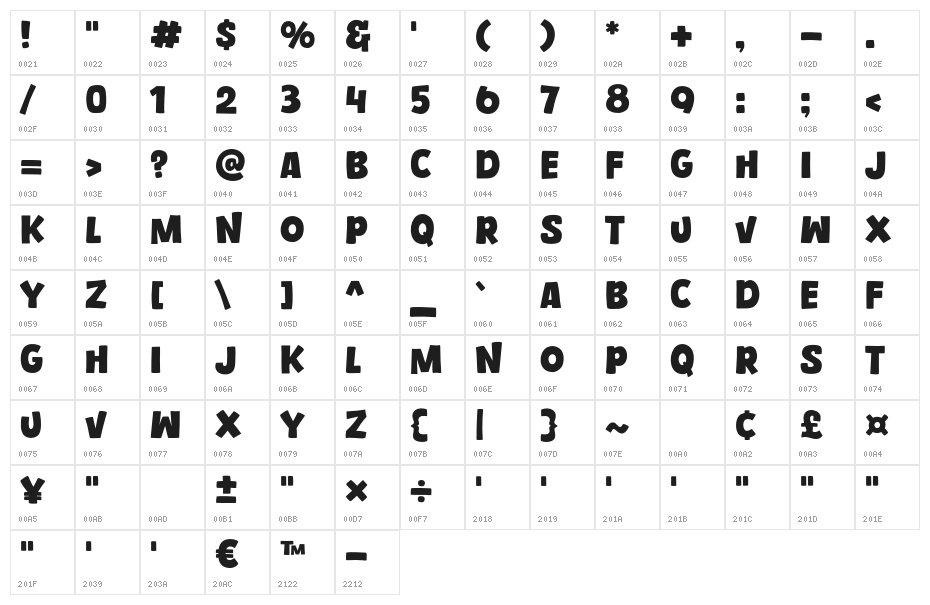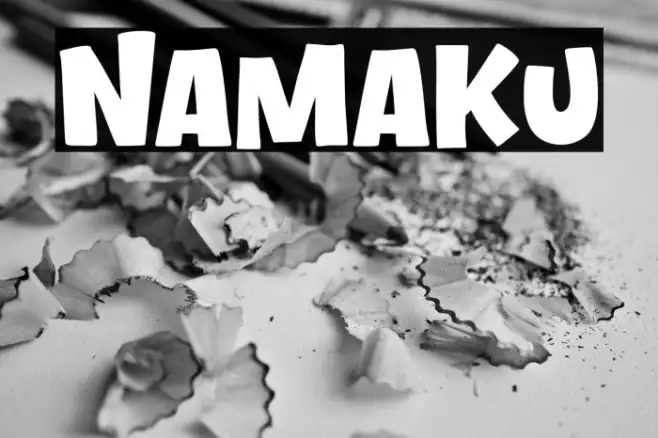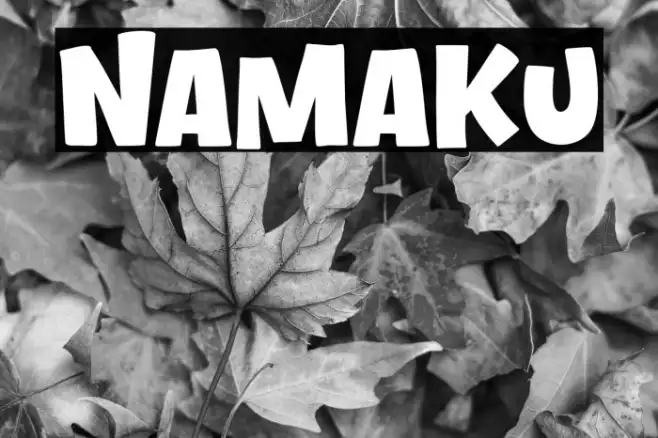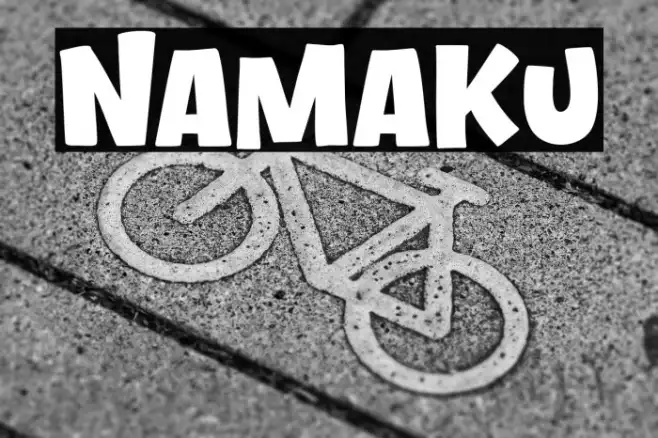
Namaku Font
Namaku Description
This bold, playful font features thick, rounded characters with a whimsical and friendly appearance. The letters are uniformly bold with a slightly uneven baseline, giving them a hand-drawn feel. The font is highly legible, making it suitable for various creative applications. Its exaggerated curves and bold strokes make it stand out, while the consistent weight across all characters ensures readability. The numbers and special characters maintain the same playful style, adding to the font's cohesive look.
| Proposed Projects | Ideal for children's books, playful branding, posters, and greeting cards. |